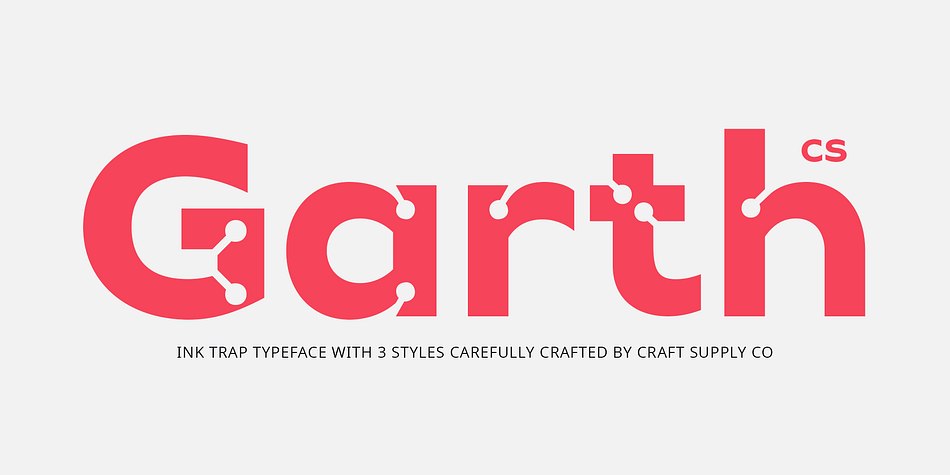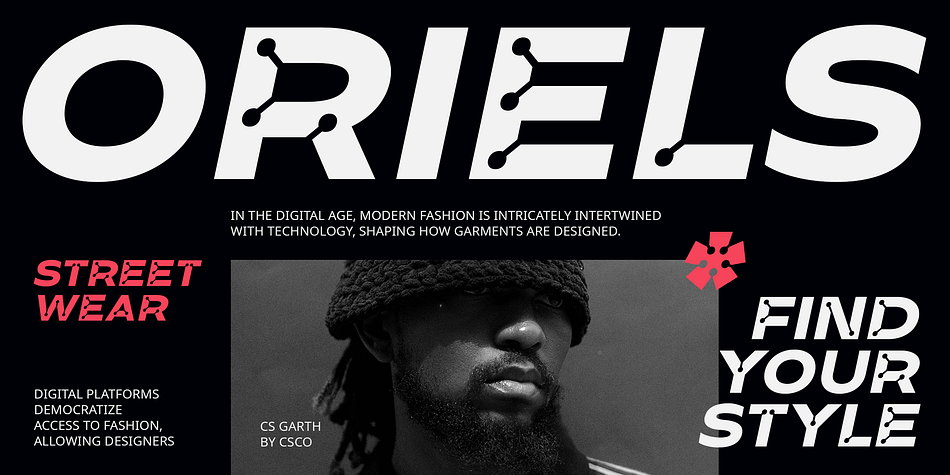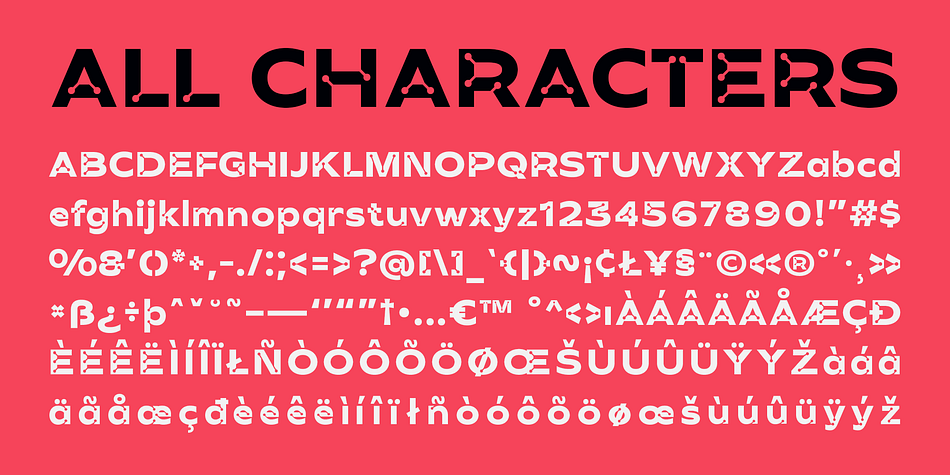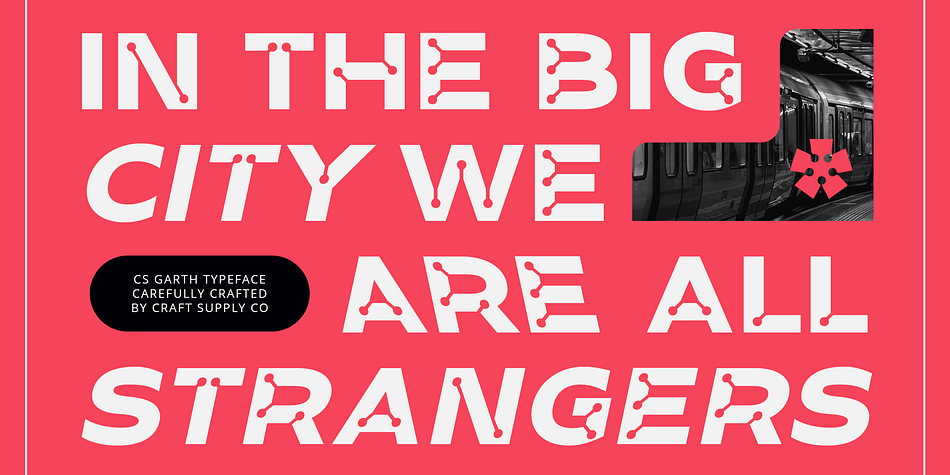
CS Garth
CS Garth is a sans serif font family. This typeface has three styles and was published by Craft Supply Co.
CS Garth – Inktrap Font: Where Modernity Meets Dimension
Introduction
CS Garth is a modern sans-serif font with inktrap features that bring a unique dimension to modern design projects. With its clean and sharp sans-serif design, this font showcases inktrap details that add depth and character, making it suitable for designs that prioritize a modern and up-to-date appearance.
Modern and Clean Design
The clean and sharp design of CS Garth gives it a modern and sleek appearance. Its sans-serif design provides a clean and minimalist look that is perfect for modern design projects.
Inktrap Details for Added Dimension
The inktrap details in CS Garth add a unique dimension to the font, making it stand out in any design project. These details emphasize corners and fine details, adding depth and character to the text.